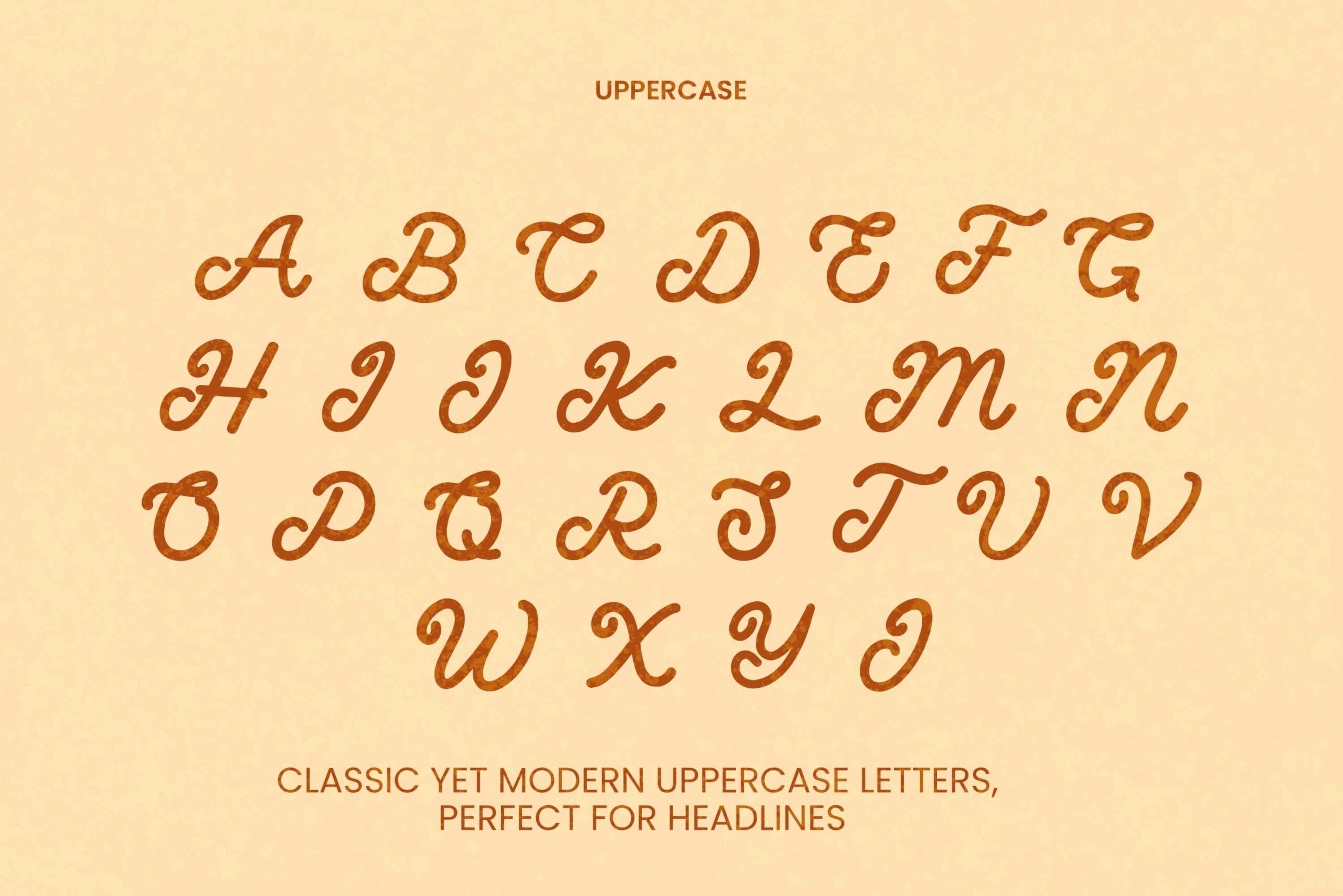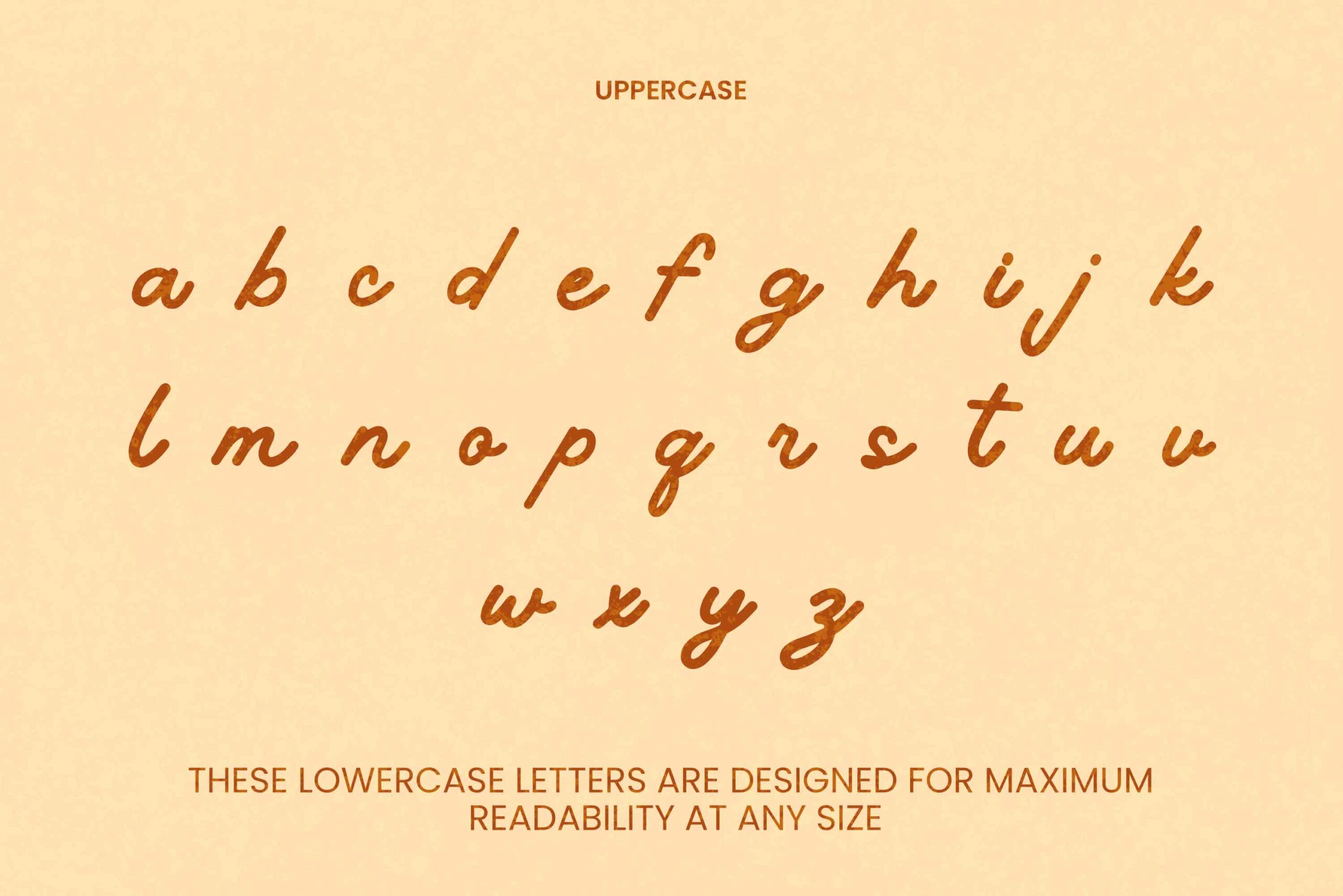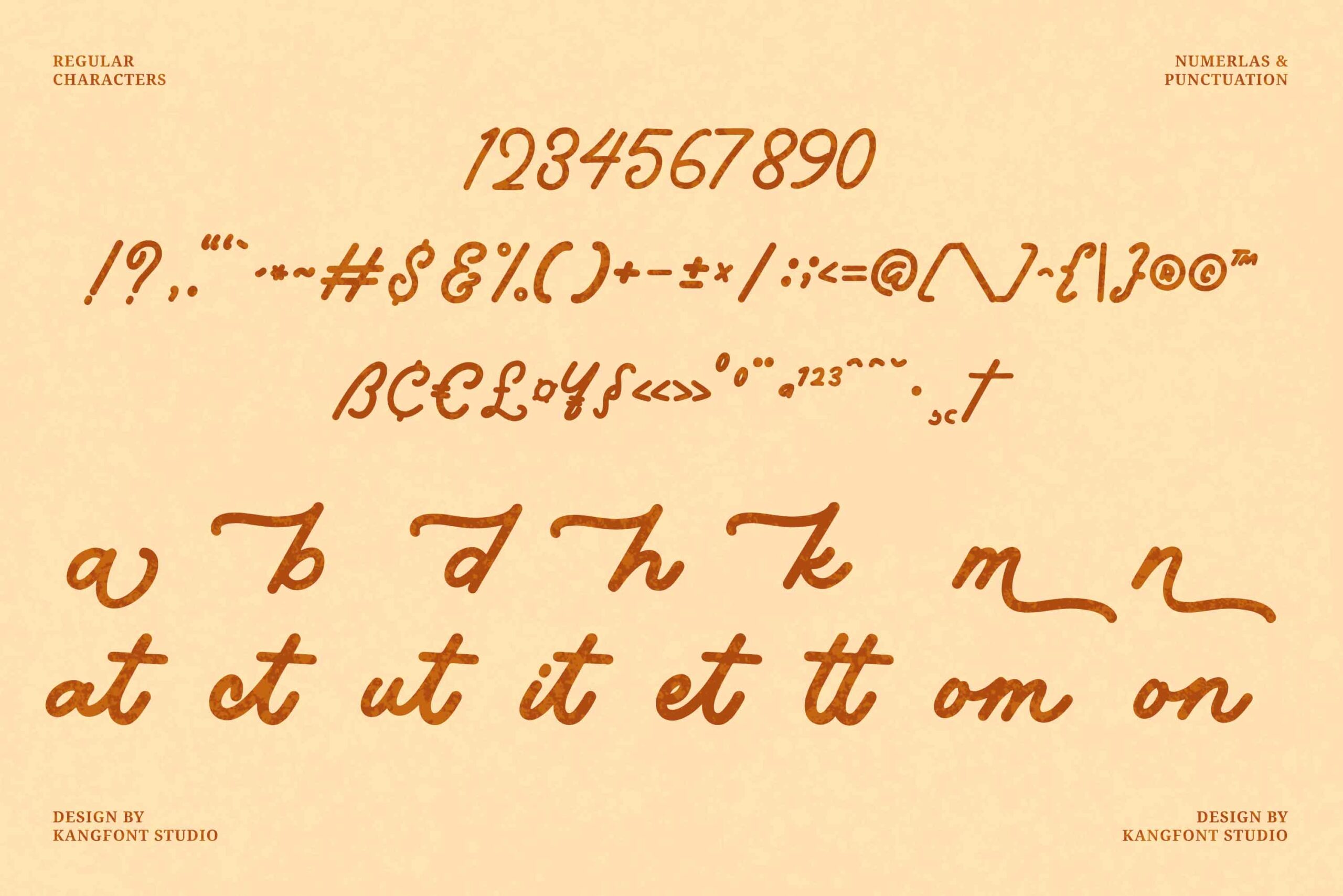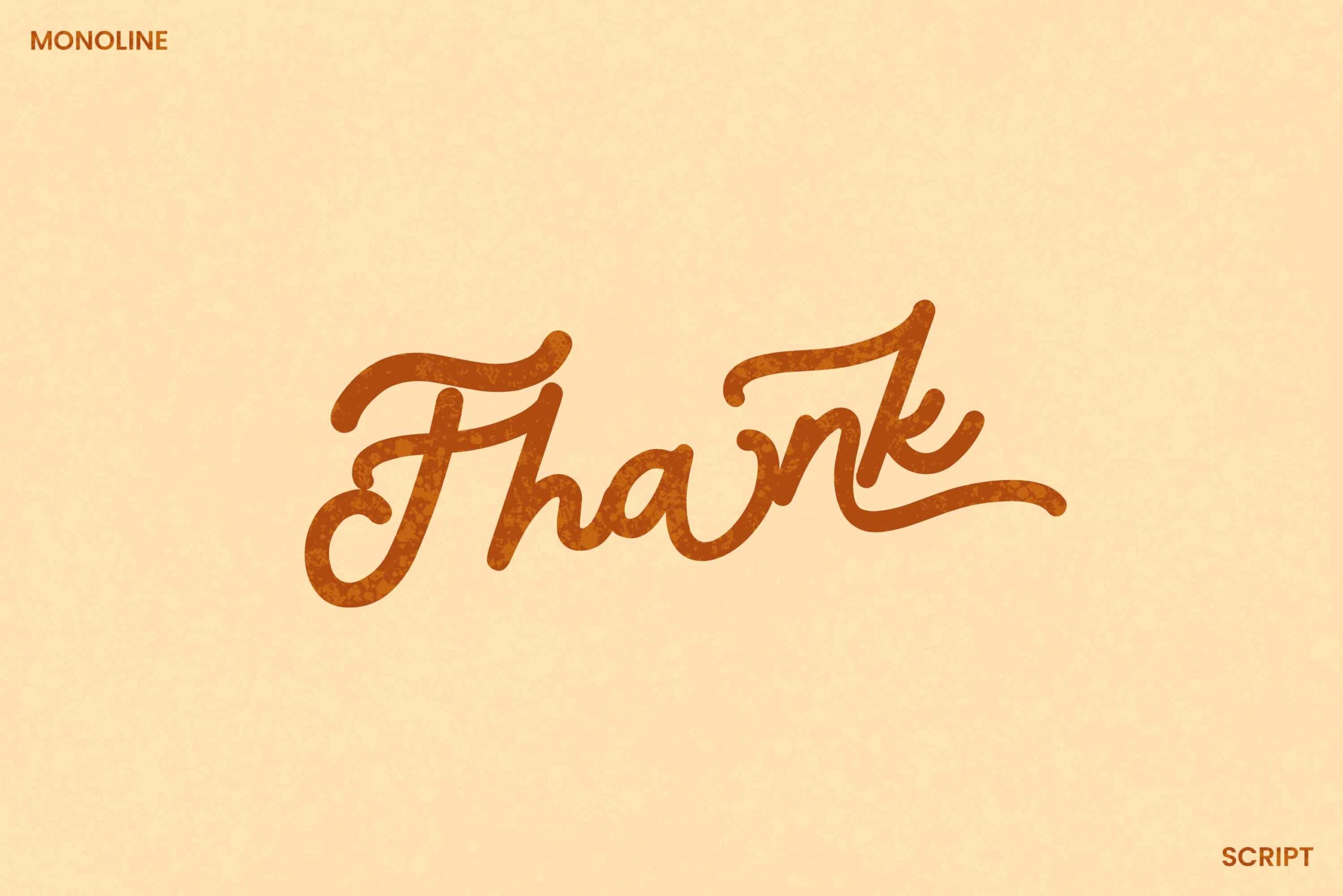
Raghuka – Monoline Script Font
Raghuka is a stylish monoline script font with an elegant and modern handwritten feel. Its smooth, consistent lines create a warm, friendly, and professional impression. Perfect for logos, branding, posters, invitations, and other creative projects.
• Ligature & Stylistic alternate